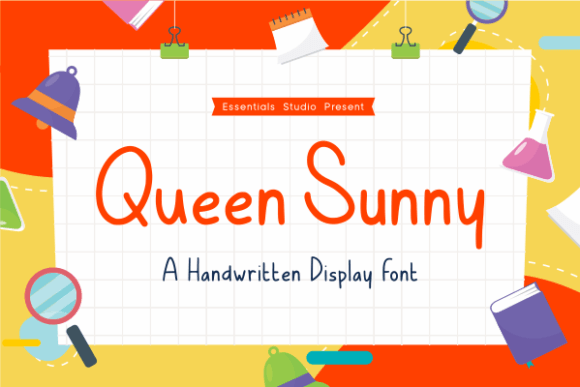
Queen Sunny: A Versatile and Friendly Handwritten Font
If you're looking for a font that combines simplicity with personality, Queen Sunny might just be the perfect fit. This clean, relaxed, and friendly handwritten font has gained popularity among designers, creators, and business owners who want to add a touch of warmth and approachability to their projects. Whether you're working on a logo, a website, or a marketing campaign, Queen Sunny offers a unique blend of style and usability that can elevate your design work.
What Makes Queen Sunny Stand Out?
Queen Sunny is designed with a neat and simple style in mind, making it easy to read while still maintaining a personal, handcrafted feel. Unlike more ornate or complex fonts, Queen Sunny doesn't try to be anything other than what it is: a reliable, go-to font that works across a wide range of applications. Its clean lines and consistent spacing ensure that it remains legible even at smaller sizes, which is essential for both digital and print media.
The font's handwritten aesthetic gives it a sense of authenticity and creativity, making it ideal for brands that want to convey a friendly and approachable image. Whether you're designing for a boutique, a nonprofit organization, or a personal blog, Queen Sunny can help you communicate your message in a way that feels genuine and engaging.
Key Features of Queen Sunny
- Neat and Simple Style: Queen Sunny avoids unnecessary flourishes or complexity, focusing instead on clarity and readability.
- Handwritten Aesthetic: The font mimics the look of real handwriting, adding a personal touch to any design.
- High Legibility: Despite its casual appearance, Queen Sunny remains easy to read, even in smaller sizes.
- Wide Range of Applications: From logos to social media posts, Queen Sunny can be used in various formats and contexts.
Where Can You Use Queen Sunny?
One of the greatest strengths of Queen Sunny is its versatility. It can be used in a variety of settings, including but not limited to:
- Branding and Logos: Queen Sunny is an excellent choice for businesses that want to create a warm and inviting brand identity.
- Web Design: Whether you're building a personal website or a corporate landing page, Queen Sunny can add a friendly tone to your content.
- Social Media Content: With its expressive style, Queen Sunny is great for creating eye-catching headlines, captions, and banners.
- Print Materials: From business cards to brochures, Queen Sunny can bring a human touch to physical designs.
- Personal Projects: Artists, writers, and creatives often use Queen Sunny to add a unique flair to their personal work.
Its adaptability makes it a valuable tool for anyone involved in design, marketing, or content creation. Whether you're a professional designer or a small business owner, Queen Sunny can help you achieve a more personalized and engaging visual style.
Who Benefits from Using Queen Sunny?
Queen Sunny is particularly well-suited for individuals and organizations that prioritize a friendly and approachable image. Here are some groups that may find it especially useful:
- Small Business Owners: For entrepreneurs looking to build a brand that feels authentic and trustworthy, Queen Sunny can be a powerful visual tool.
- Designers and Creatives: Graphic designers, illustrators, and other creatives often seek fonts that offer both style and functionality. Queen Sunny fits this need perfectly.
- Nonprofit Organizations: Charities and community groups can use Queen Sunny to create materials that feel more personal and relatable.
- Online Educators and Influencers: Those who run blogs, YouTube channels, or social media platforms can use Queen Sunny to enhance the visual appeal of their content.
By choosing Queen Sunny, these users can communicate their message in a way that feels more genuine and engaging, helping them connect with their audience on a deeper level.
Strengths and Considerations
While Queen Sunny has many strengths, it's important to consider its limitations as well. One of its main advantages is its readability, which makes it suitable for a wide range of uses. However, because it's a handwritten font, it may not be the best choice for highly formal or technical documents where a more traditional typeface might be expected.
Additionally, while Queen Sunny is versatile, it's not a one-size-fits-all solution. Depending on the project, other fonts may be more appropriate. For example, if you're designing a high-end luxury brand, a more sophisticated serif font might better align with your brand's identity.
It's also worth noting that the effectiveness of Queen Sunny depends on how it's used. When paired with other fonts or design elements, it can either complement or clash with the overall aesthetic. Therefore, careful consideration should be given to typography choices to ensure a cohesive and visually appealing result.
- Project Type: What is the purpose of your design? For example, a logo may require a different font than a website header or a social media post.
- Typography Harmony: How does Queen Sunny interact with other fonts or design elements in your project? Ensuring consistency and balance is key to a successful design.
By carefully evaluating these factors, you can determine whether Queen Sunny will enhance your design or if another font might be more appropriate.